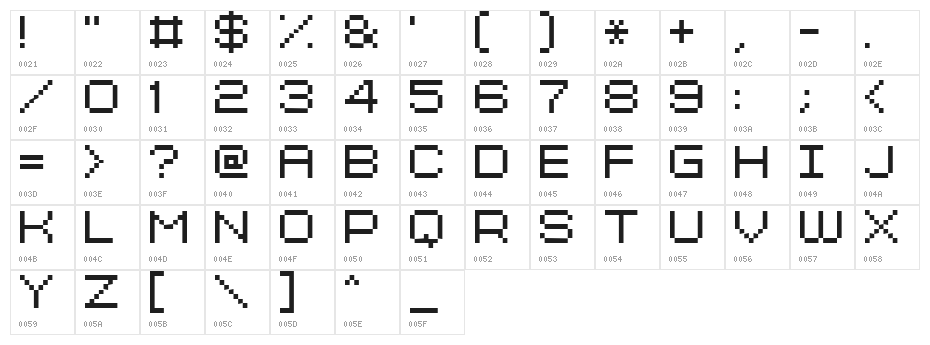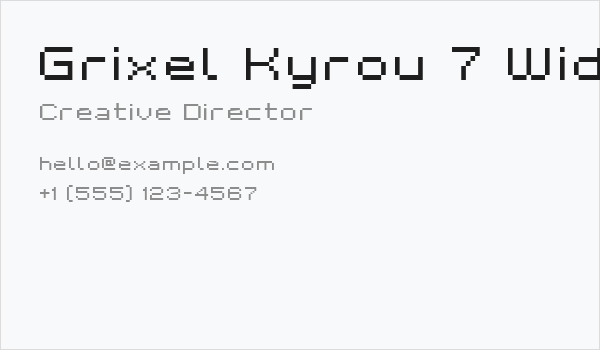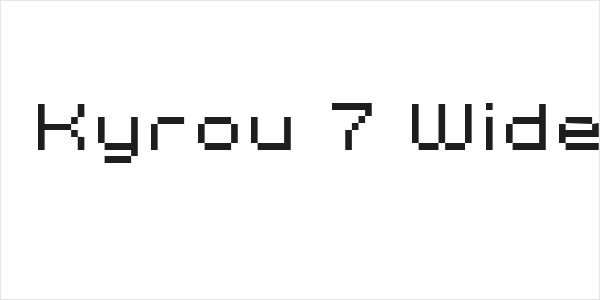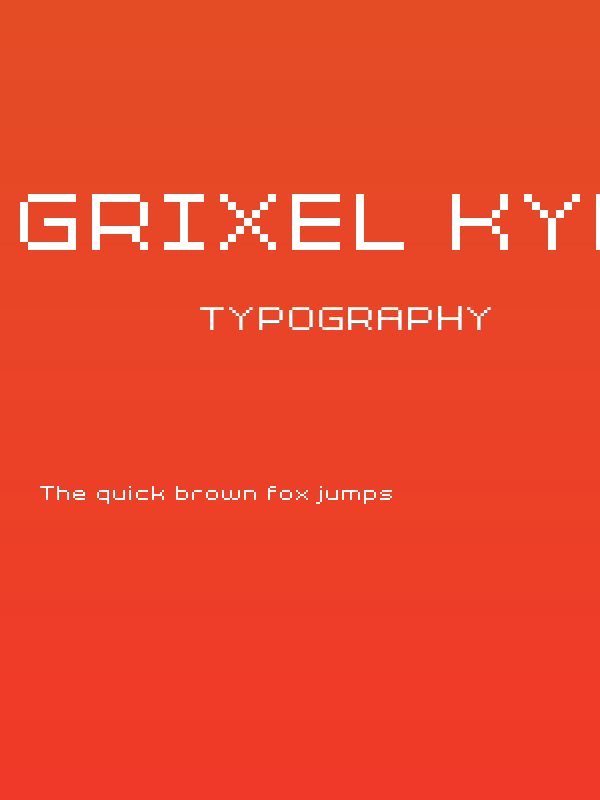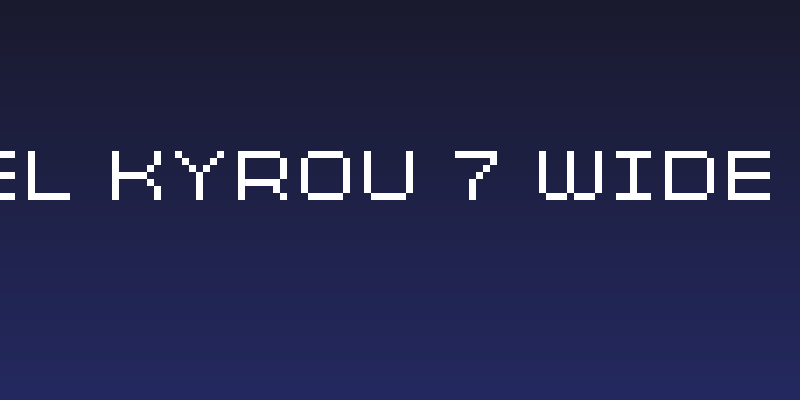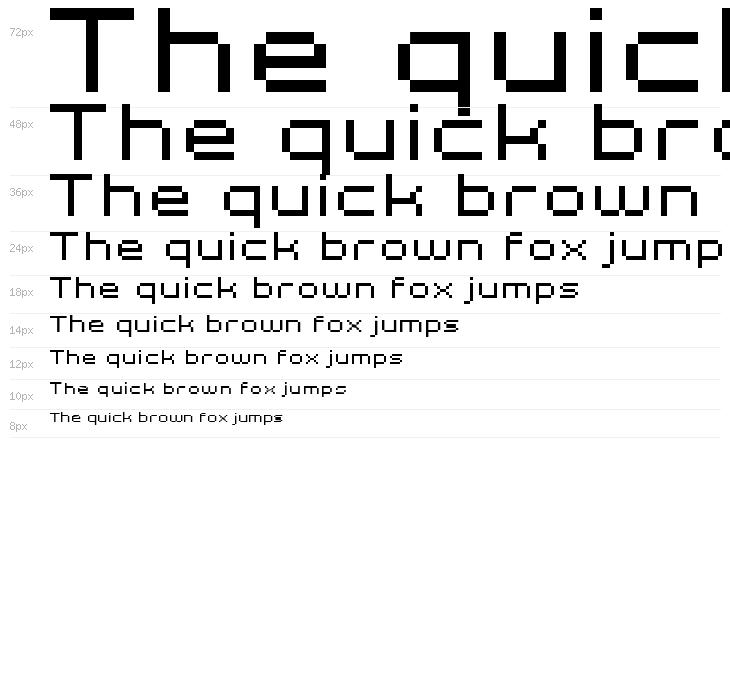
Grixel Kyrou 7 Wide Xtnd Font
Grixel Kyrou 7 Wide Xtnd Description
This font features a pixelated, blocky design reminiscent of early digital displays and retro video games. Each character is constructed with a grid-like precision, giving it a distinctly digital and geometric appearance. The uppercase and lowercase letters maintain a uniform height, contributing to a cohesive and structured look. The numerals and special characters follow the same pixelated style, ensuring consistency across all glyphs. This font's aesthetic is both nostalgic and modern, making it suitable for projects that aim to evoke a sense of retro digital charm.
| Overall Style | Retro, Digital |
| Use Case | Headlines, Logos, Digital Art |
| Proposed Projects | Ideal for video game design, retro-themed graphics, digital art projects, and tech-related branding. |